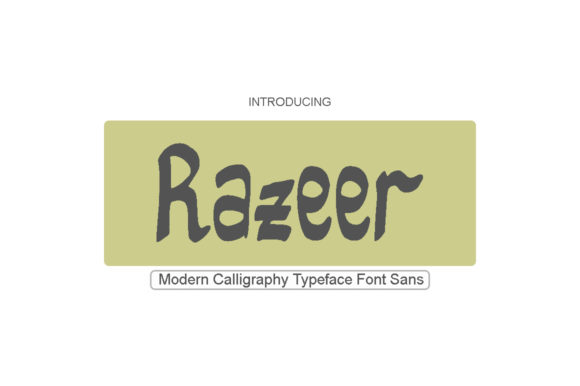
Calling all font enthusiasts and design mavens! Introducing Razeer Font, the enchanting sans serif font family that will ignite your creativity and captivate your audience.
Razeer's playful and charming personality is a breath of fresh air in the world of typography. Its classic touch adds a timeless elegance to any design, making it a perfect choice for projects that demand both style and substance.
Whether you're crafting eye-catching headlines, designing captivating posters, or creating stunning social media graphics, Razeer Font will transform your work of art into a masterpiece. Its versatility knows no bounds, making it an indispensable tool for designers of all levels.
Don't settle for ordinary fonts. Embrace the extraordinary with Razeer Font. Its mesmerizing curves and captivating style will leave an unforgettable impression on your audience.